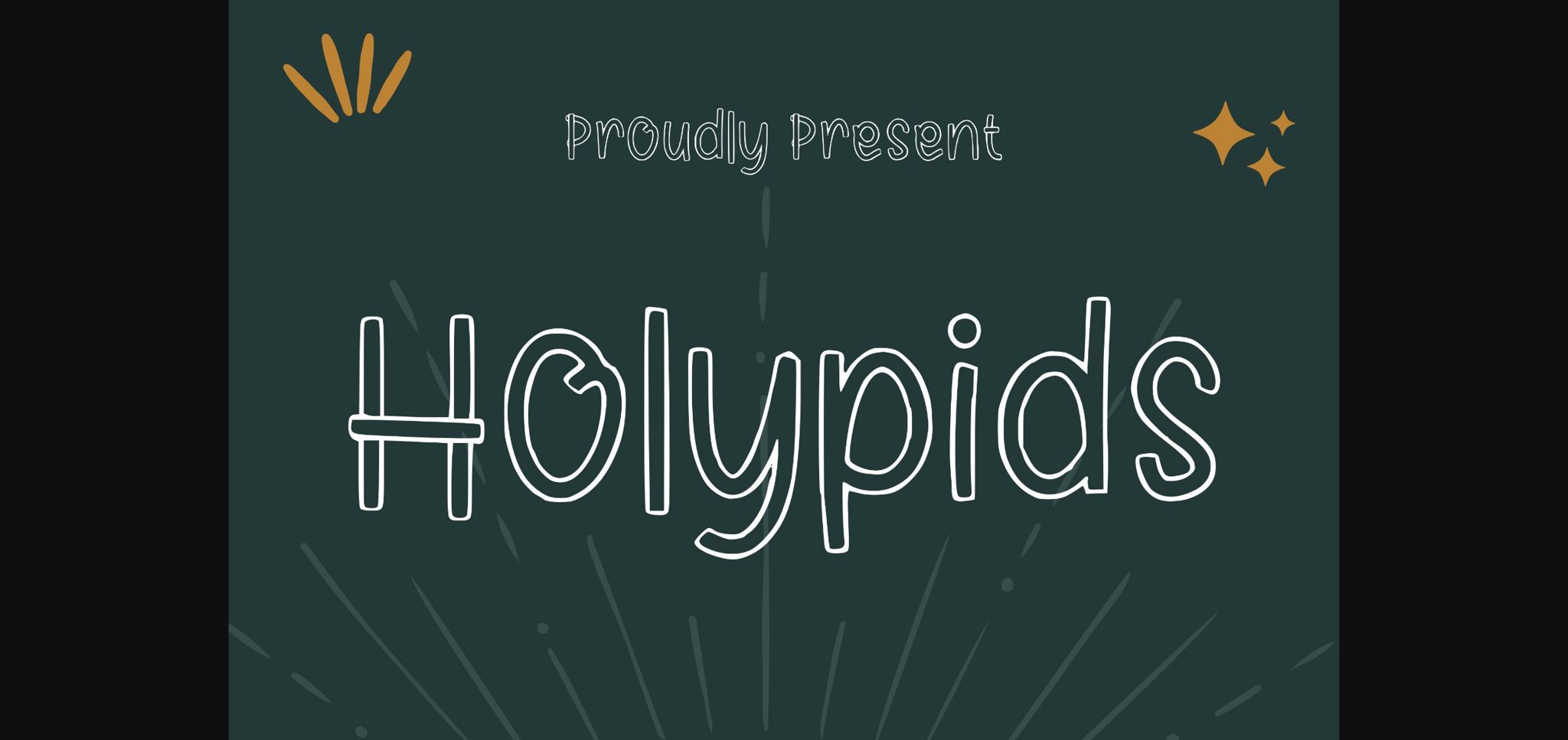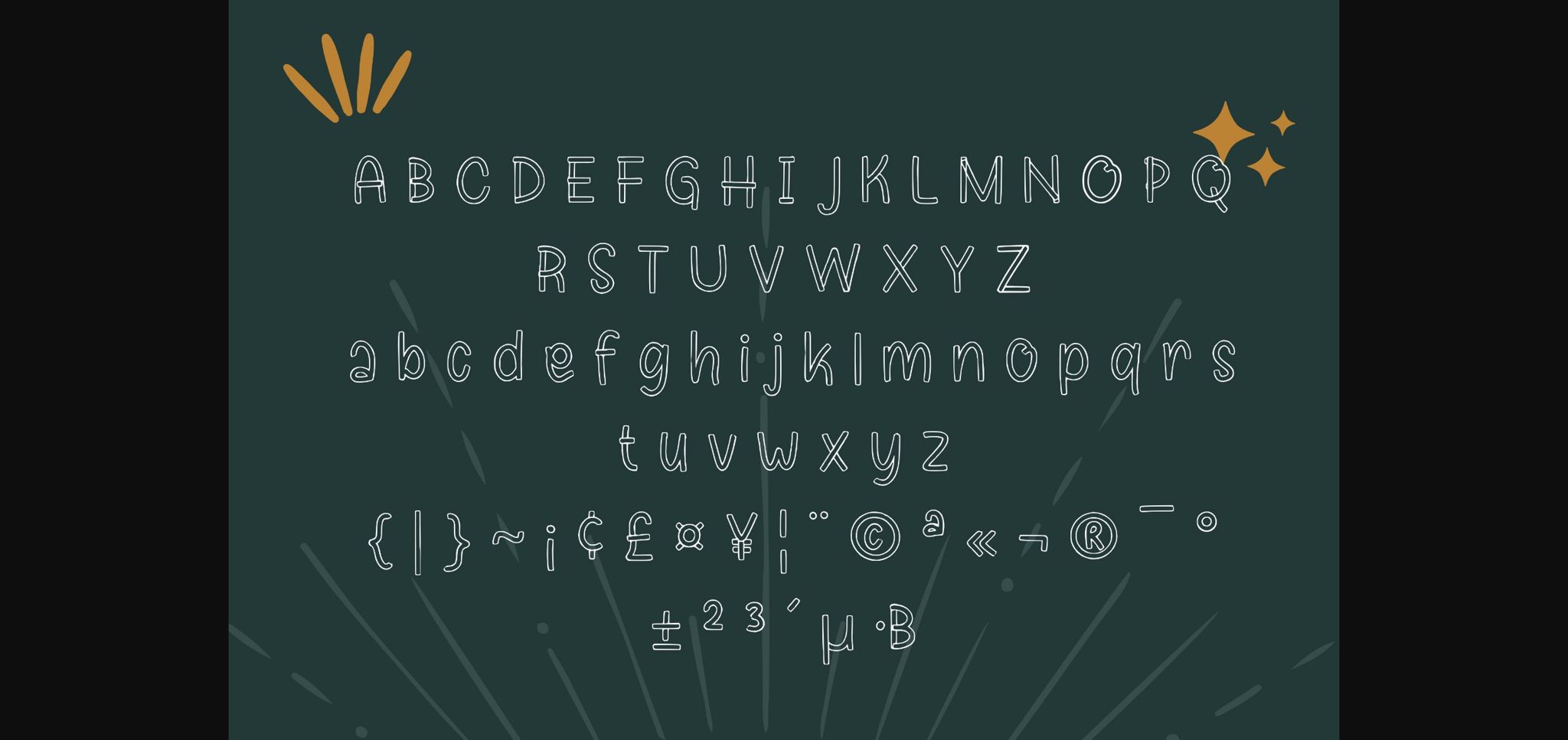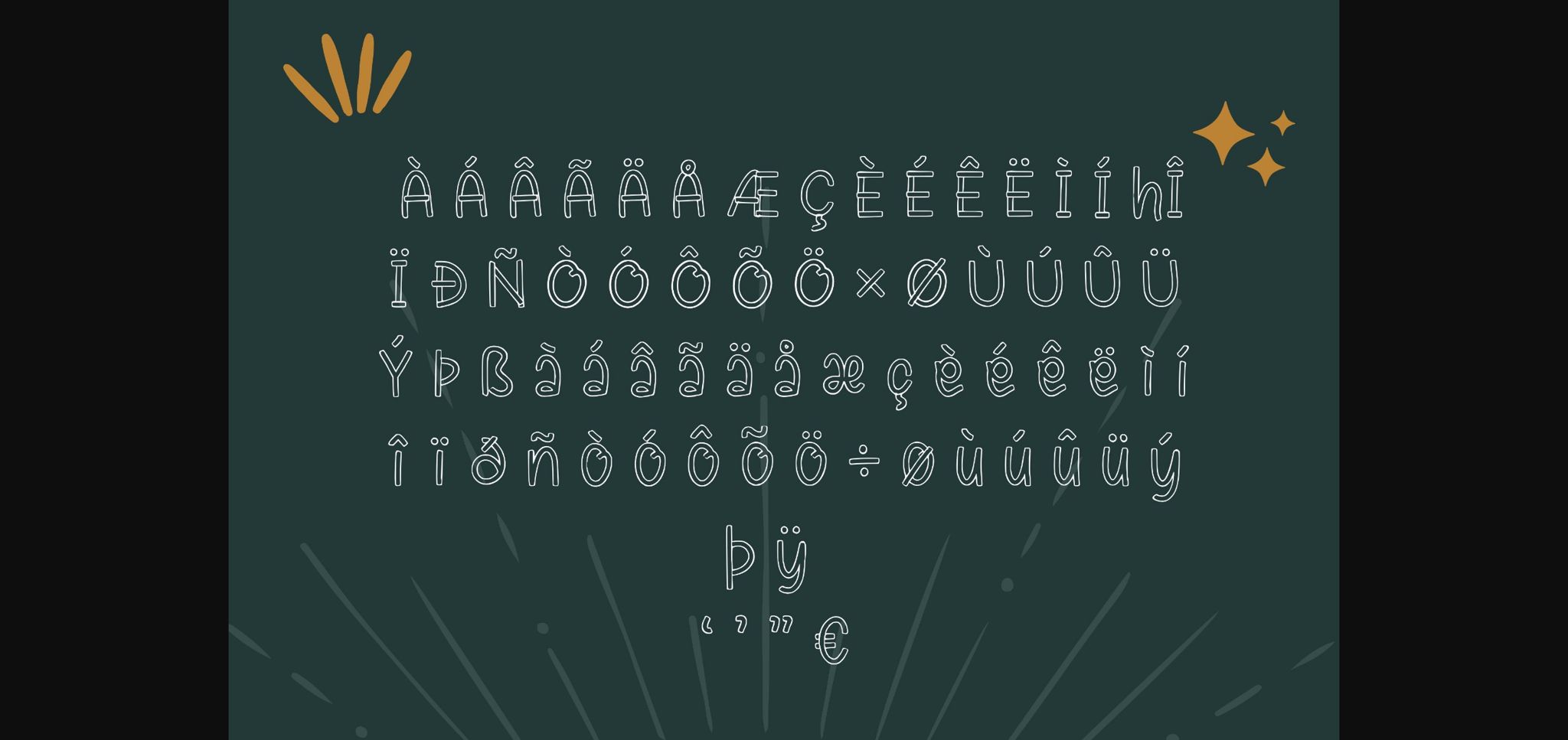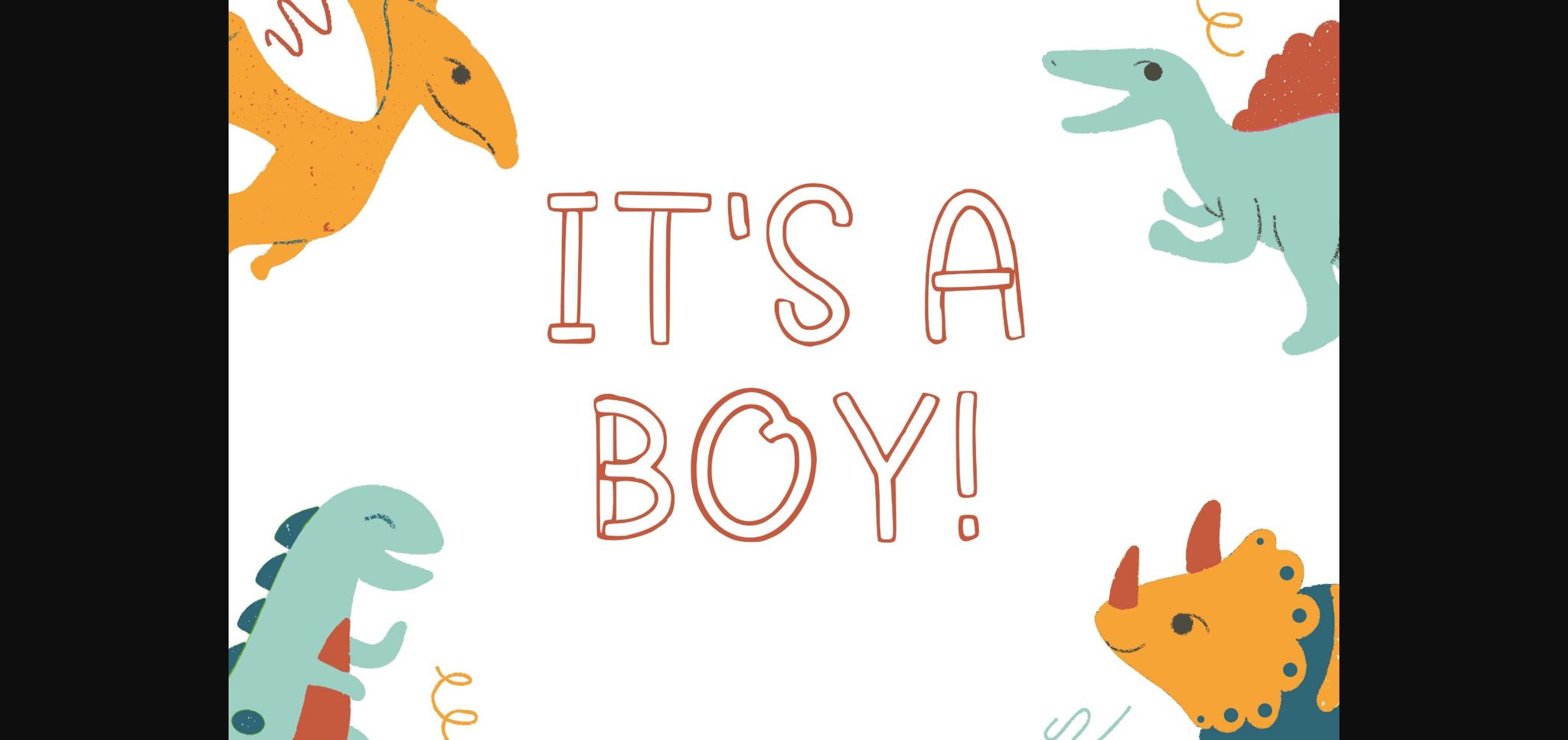
Holypids Font
About Holypids Font
Holypids is a fun, bubbly, outline sans-serif font that is perfect for fun logos, greeting cards, t-shirt designs, stickers, social media, and any craft or project.